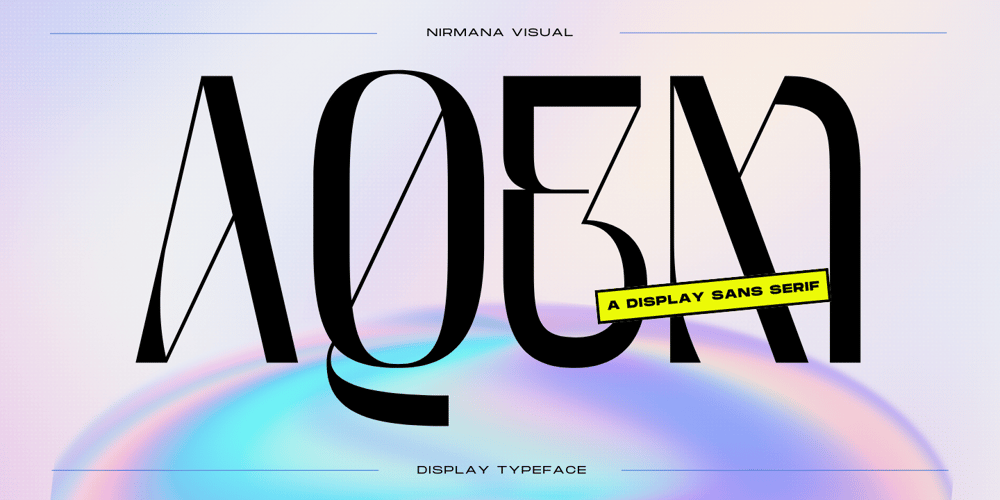
Aqem Font Family was designed by Sigit Dwipa and published by Nirmana Visual. Aqem contains 1 styles and family package options. Aqem contemporary of Sans Serif font, Inspired by art nouveau Era.Aqem offers beautiful typographic harmony for a diversity of design projects, including logos & branding, social media posts, advertisements & product designs.